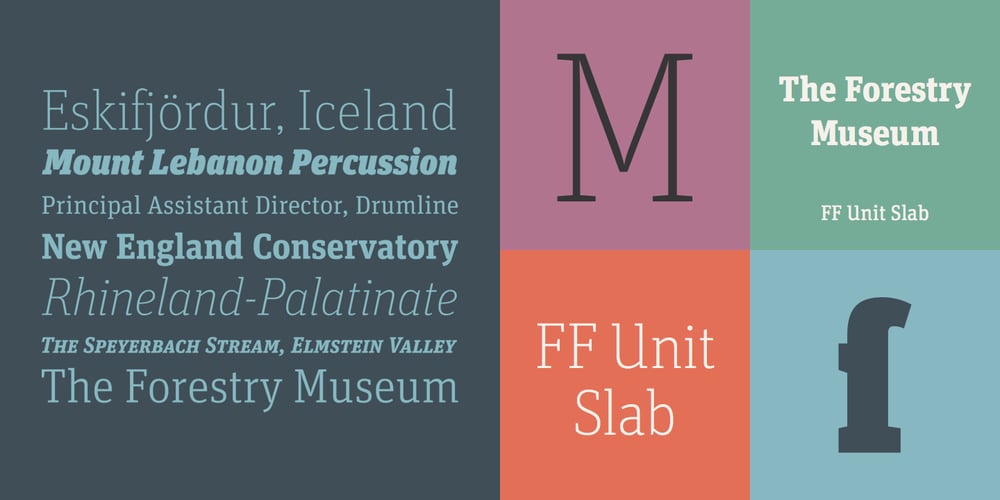
FF Unit Slab
FF Unit Slab font
FF Unit Slab Font Family was designed by Christian Schwartz, Erik Spiekermann, Kris Sowersby and published by FontFont. FF Unit Slab contains 14 styles and family package options. German type designer Erik Spiekermann, American type designer Christian Schwartz, and New Zealand type designer Kris Sowersby created this slab FontFont in 2009. The family has 14 weights, ranging from Thin to Ultra (including italics) and is ideally suited for editorial and publishing, logo, branding and creative industries as well as web and screen design. FF Unit Slab provides advanced typographical support with features such as ligatures, small capitals, alternate characters, case-sensitive forms, fractions, and super- and subscript characters. It comes with a complete range of figure set options – oldstyle and lining figures, each in tabular and proportional widths. As well as Latin-based languages, the typeface family also supports the Cyrillic and Greek writing systems. This FontFont is a member of the FF Unit super family, which also includes FF Unit and FF Unit Rounded.